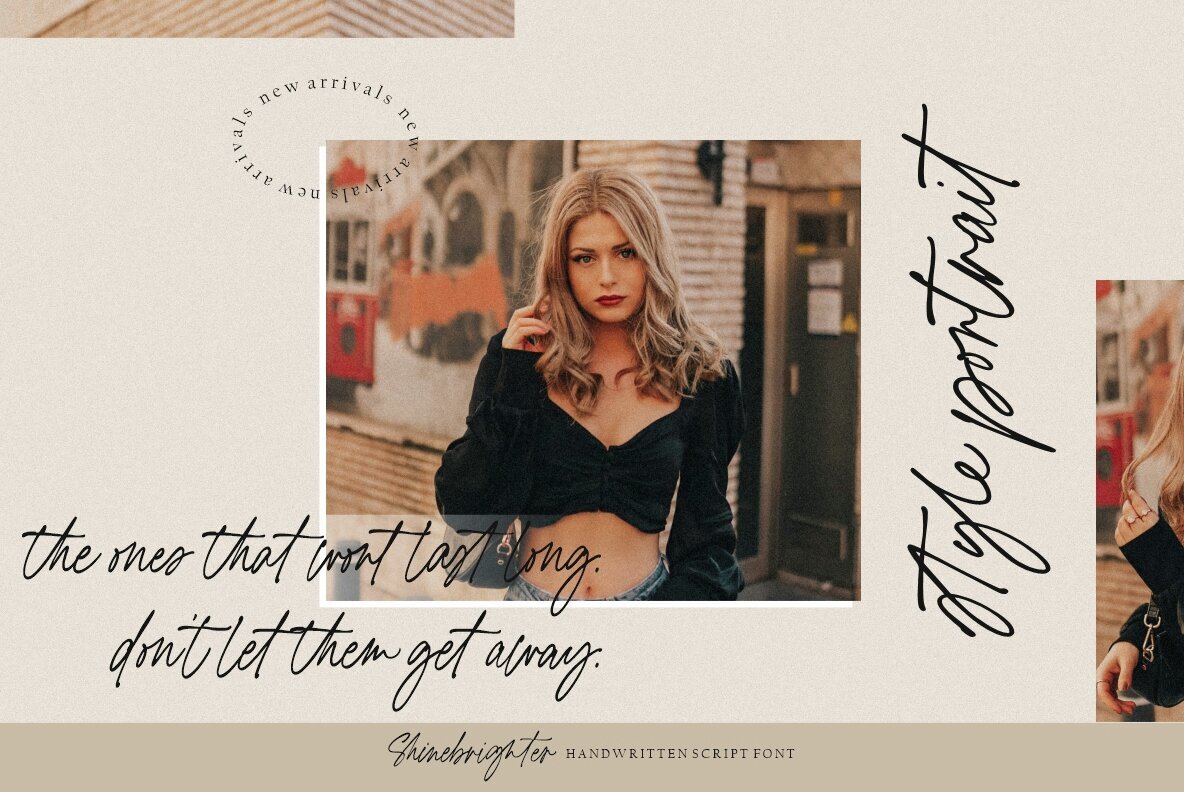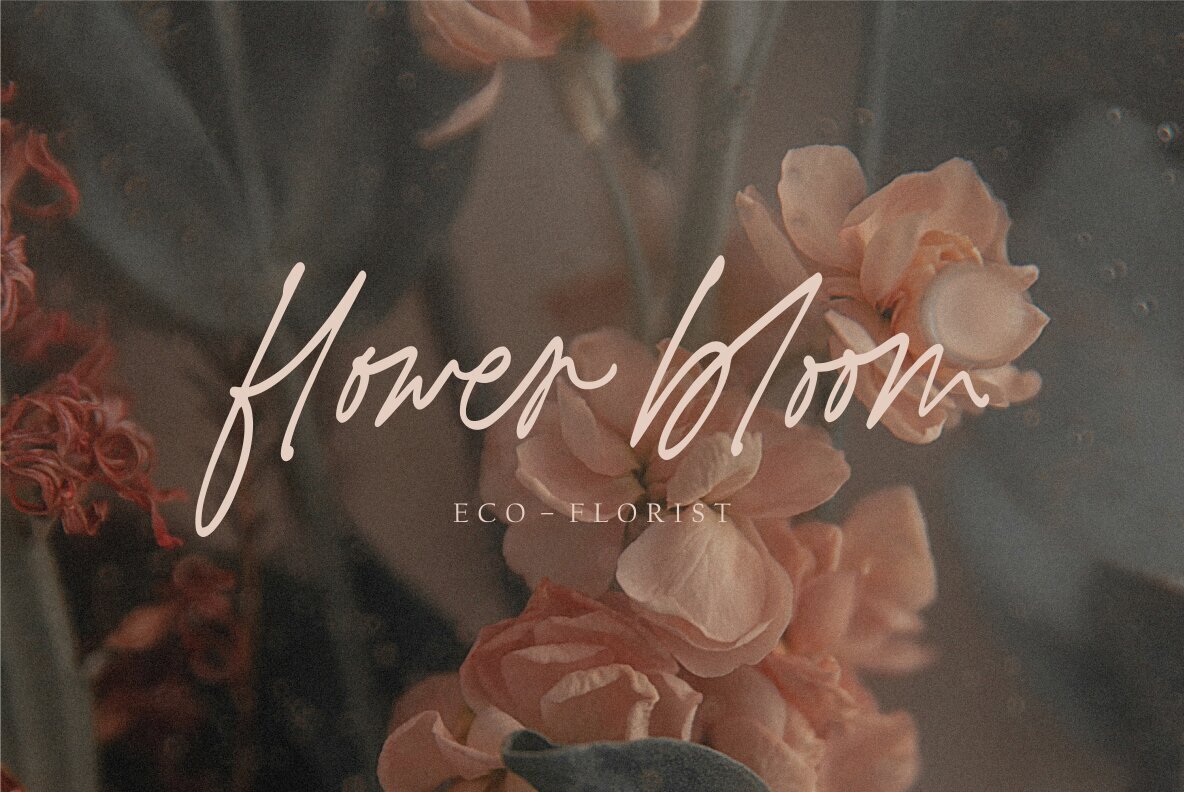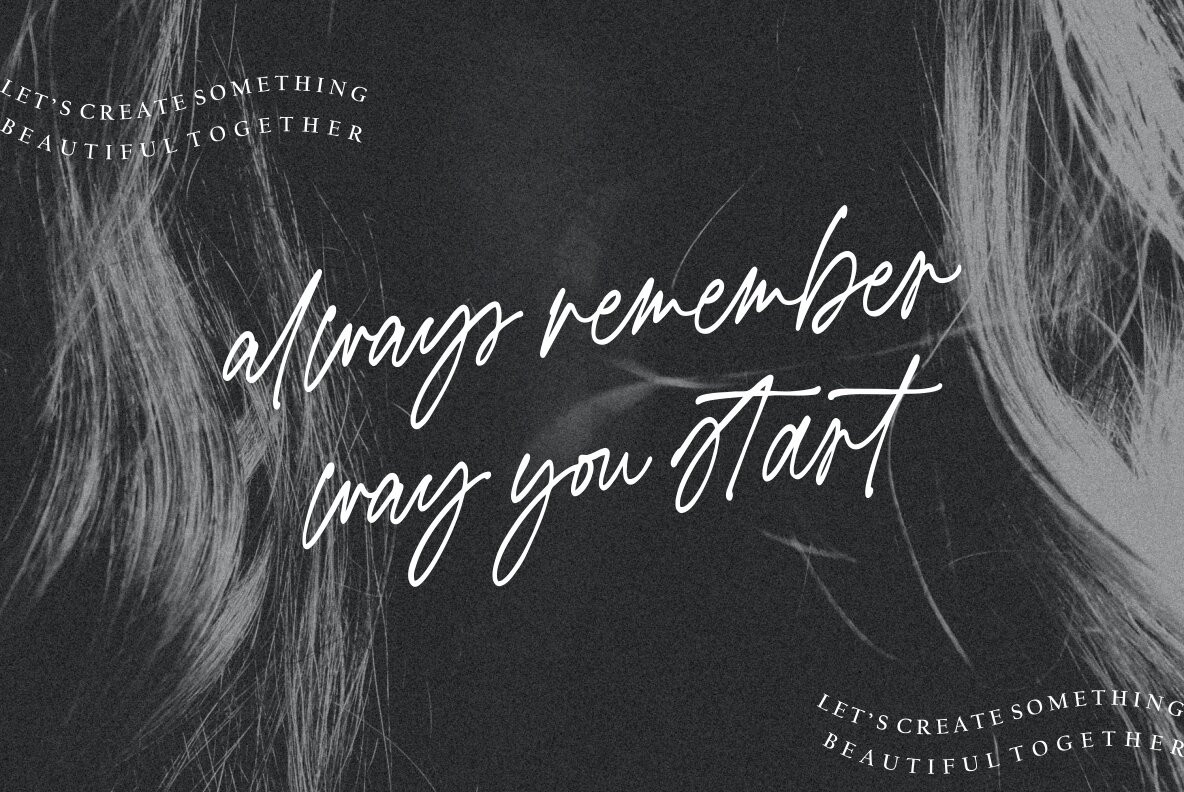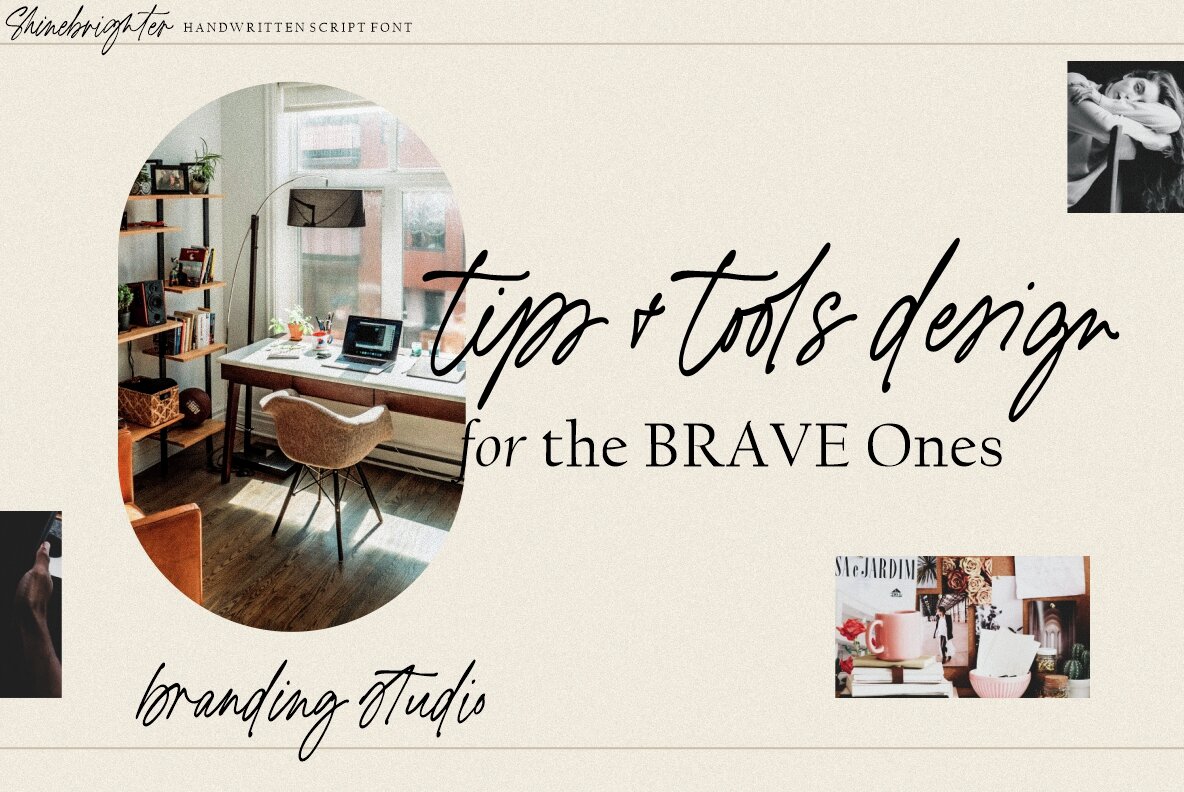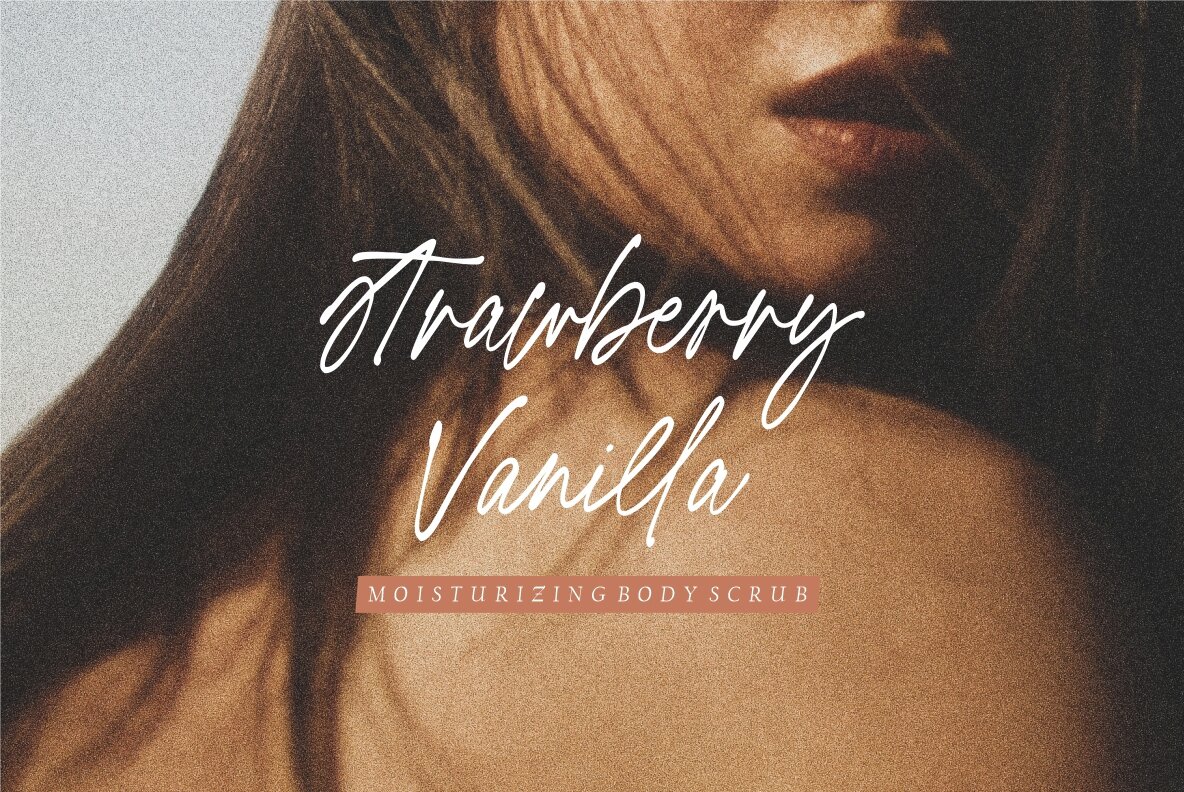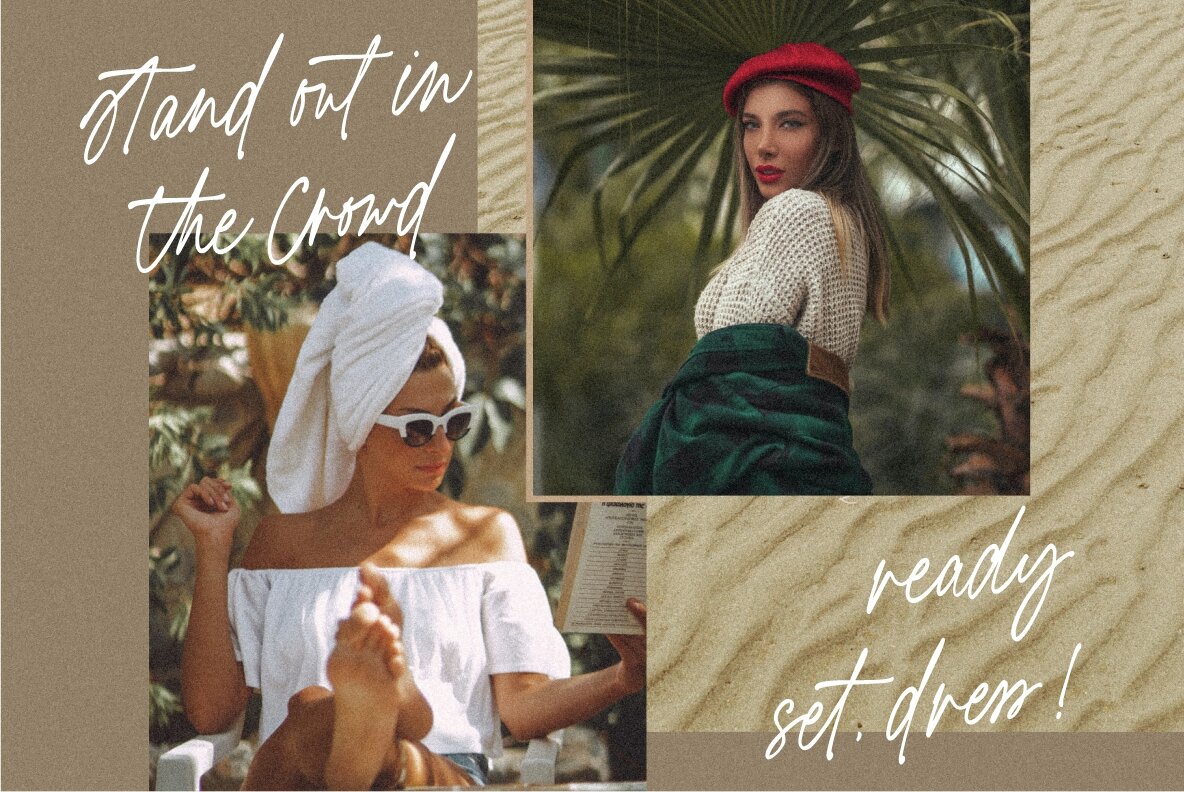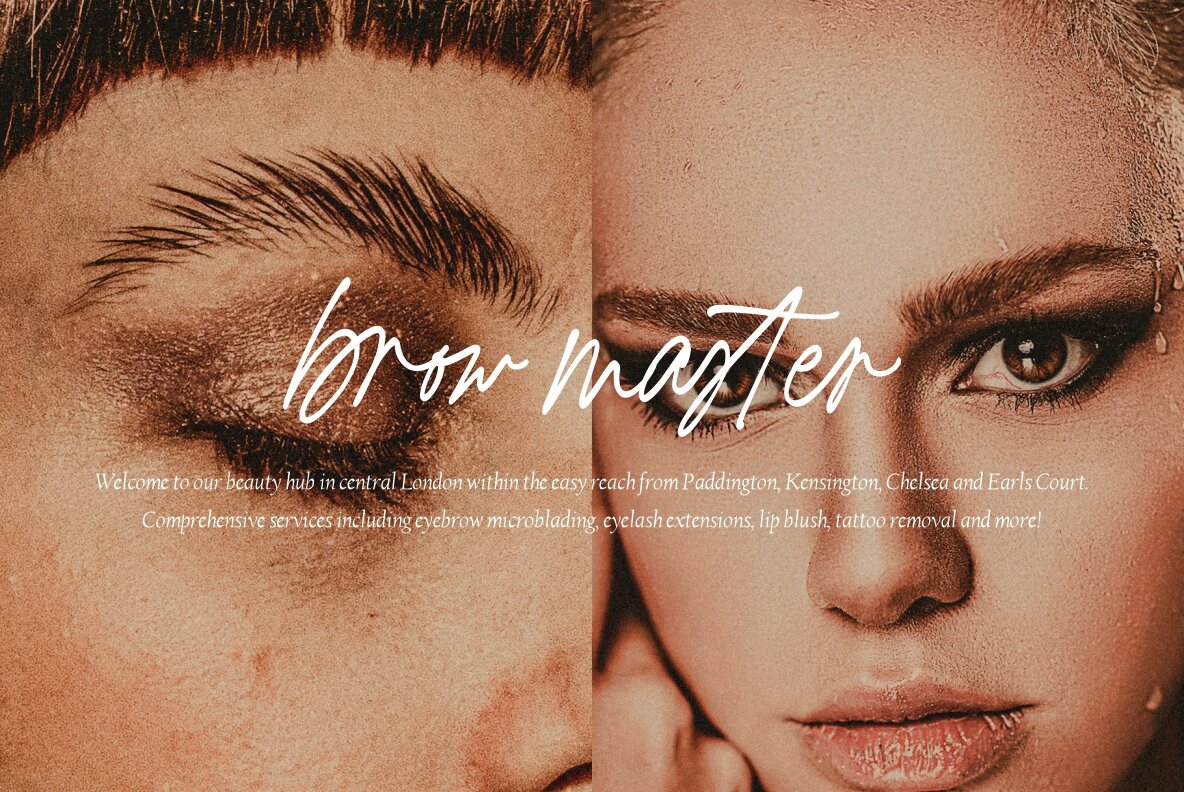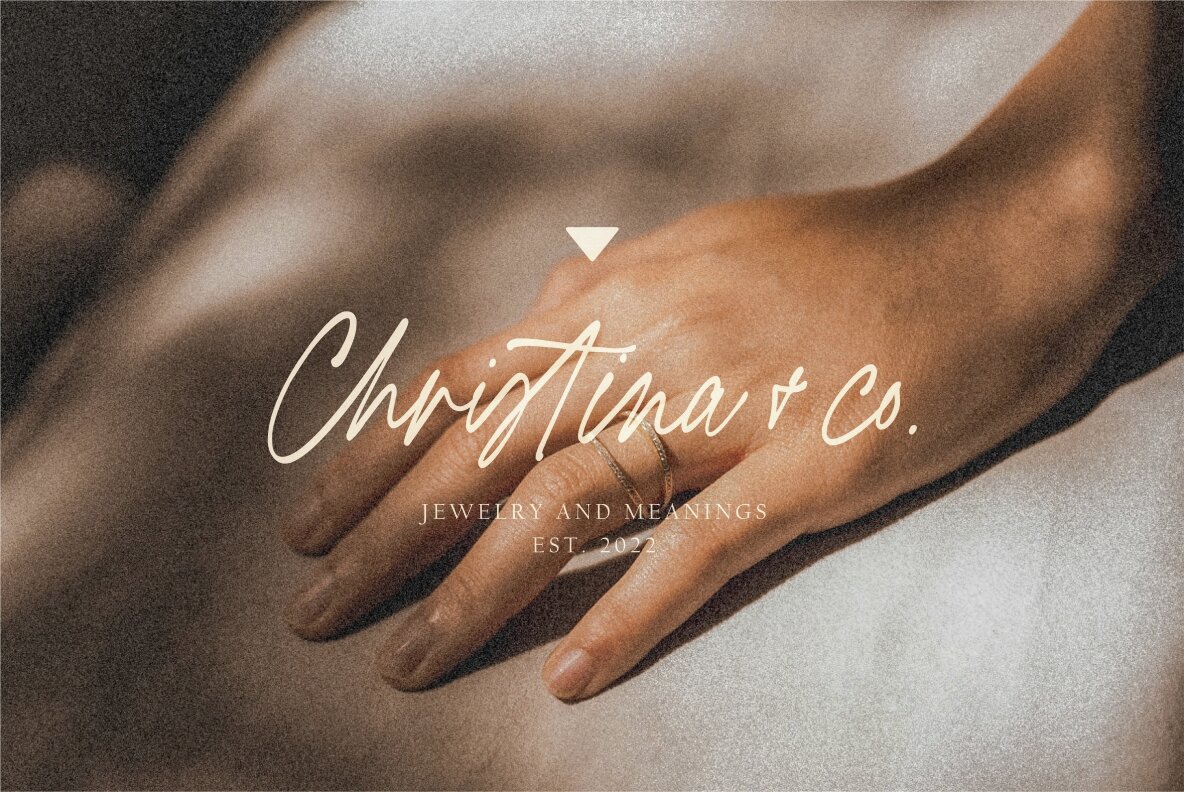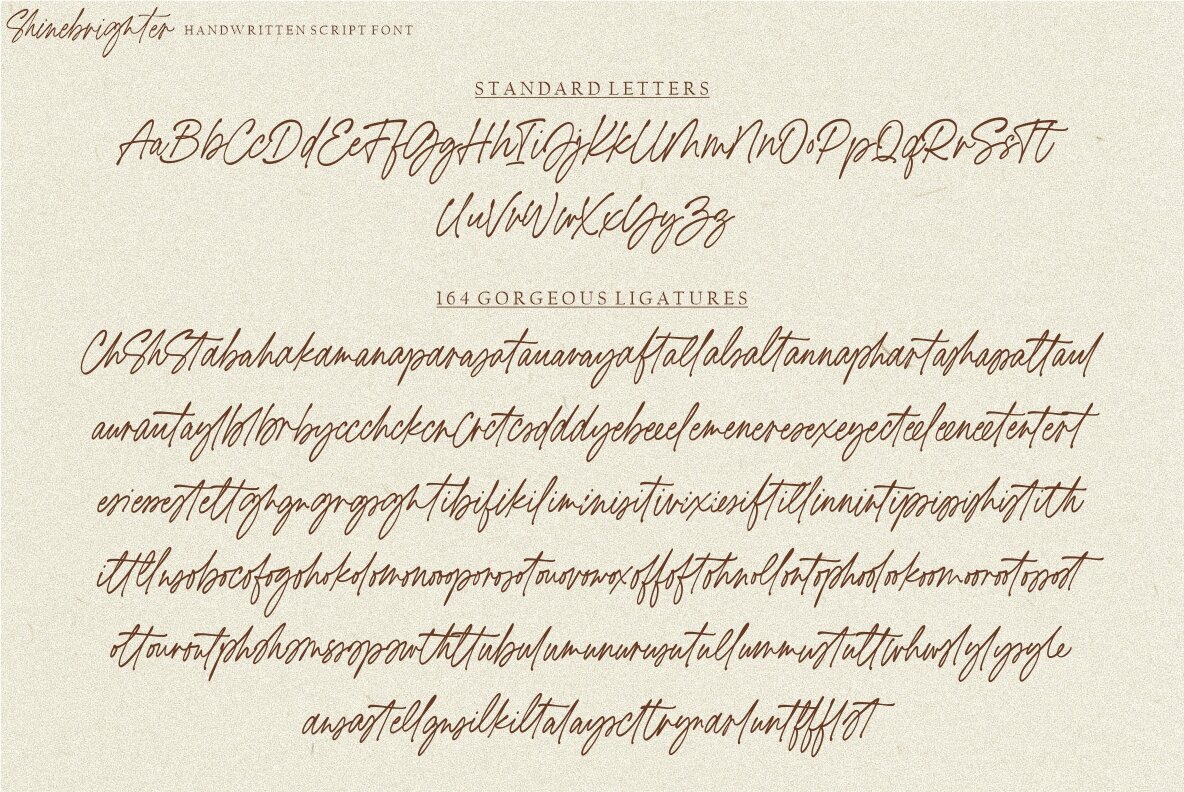
Shine brighter Font
Shine Brighter
In today's design landscape, finding the right font is vital. Shine Brighter offers an elegant handwritten style that's perfect for a wide array of uses. Ideal for adding a personal touch to your blog quotes, posters, marketing materials, or wedding invitations, this font ensures your message is conveyed with warmth and sophistication.Shine Brighter: Elegant Handwritten Font